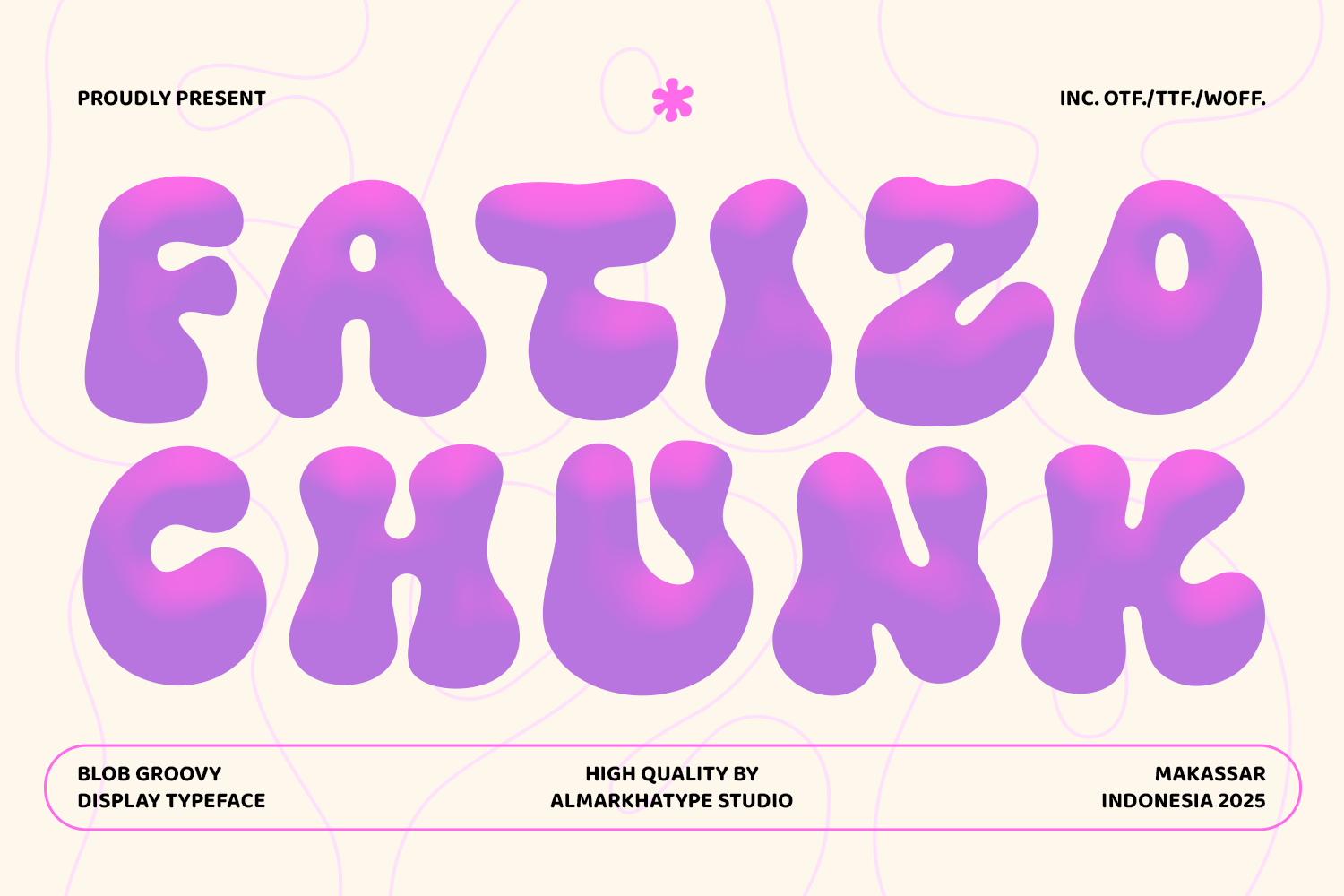
Fatizo - Blob Display Typeface
Fatizo is a bold and playful display typeface designed to bring joy, personality, and expressive energy into your designs. Inspired by groovy shapes and soft blob-like forms, Fatizo features rounded curves, exaggerated proportions, and a friendly visual character that instantly grabs attention.With its chunky letterforms and smooth, bubbly contours, Fatizo delivers a fun and retro-modern vibe while remaining visually balanced and readable at large sizes. This typeface is perfect for designs that aim to feel lively, creative, and approachable making every word look vibrant and full of character. Fatizo is crafted for display use, where personality matters most. Whether used for headlines, posters, branding, or playful visual identities, Fatizo adds a strong visual impact and a cheerful tone to any composition.